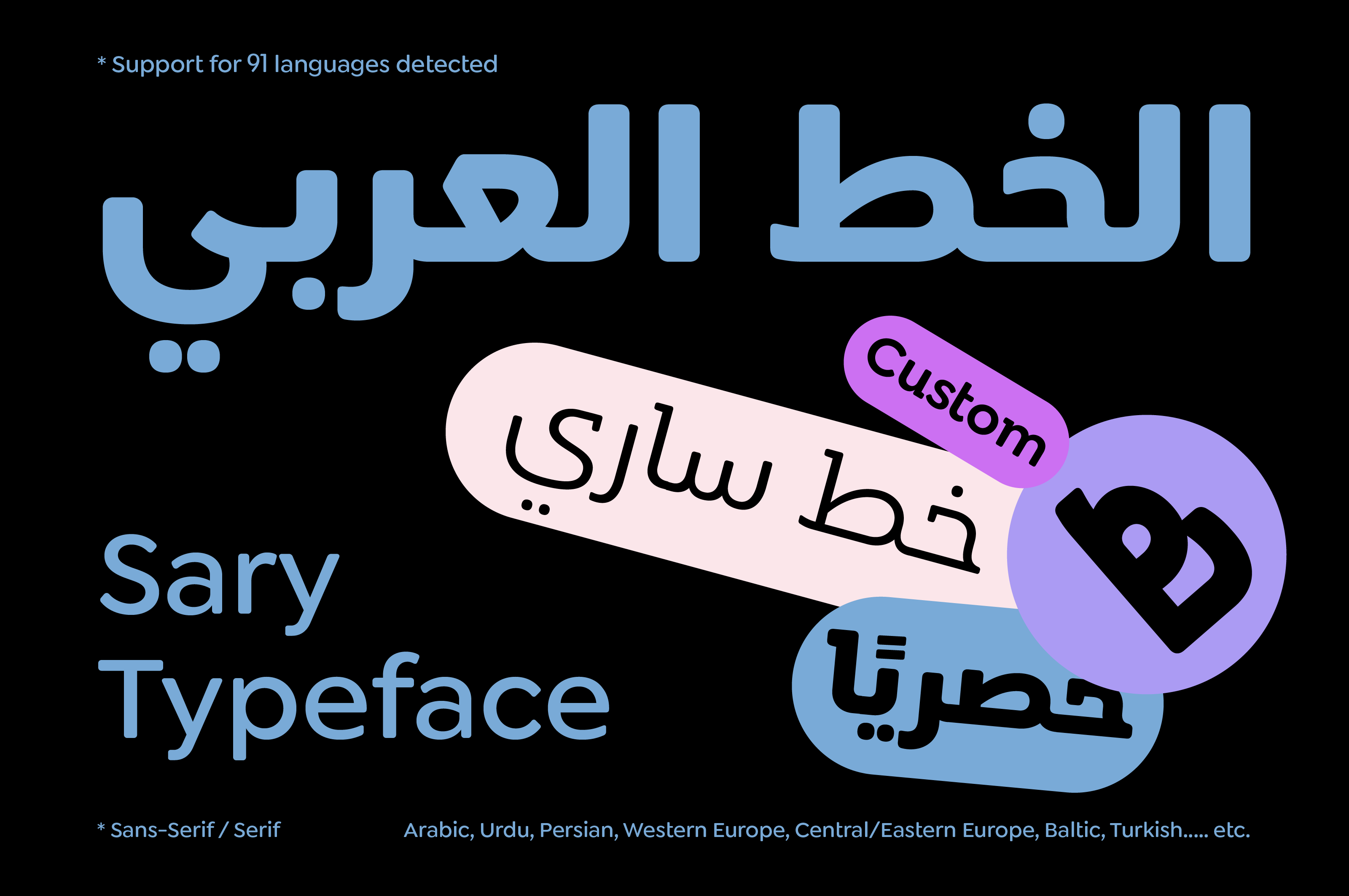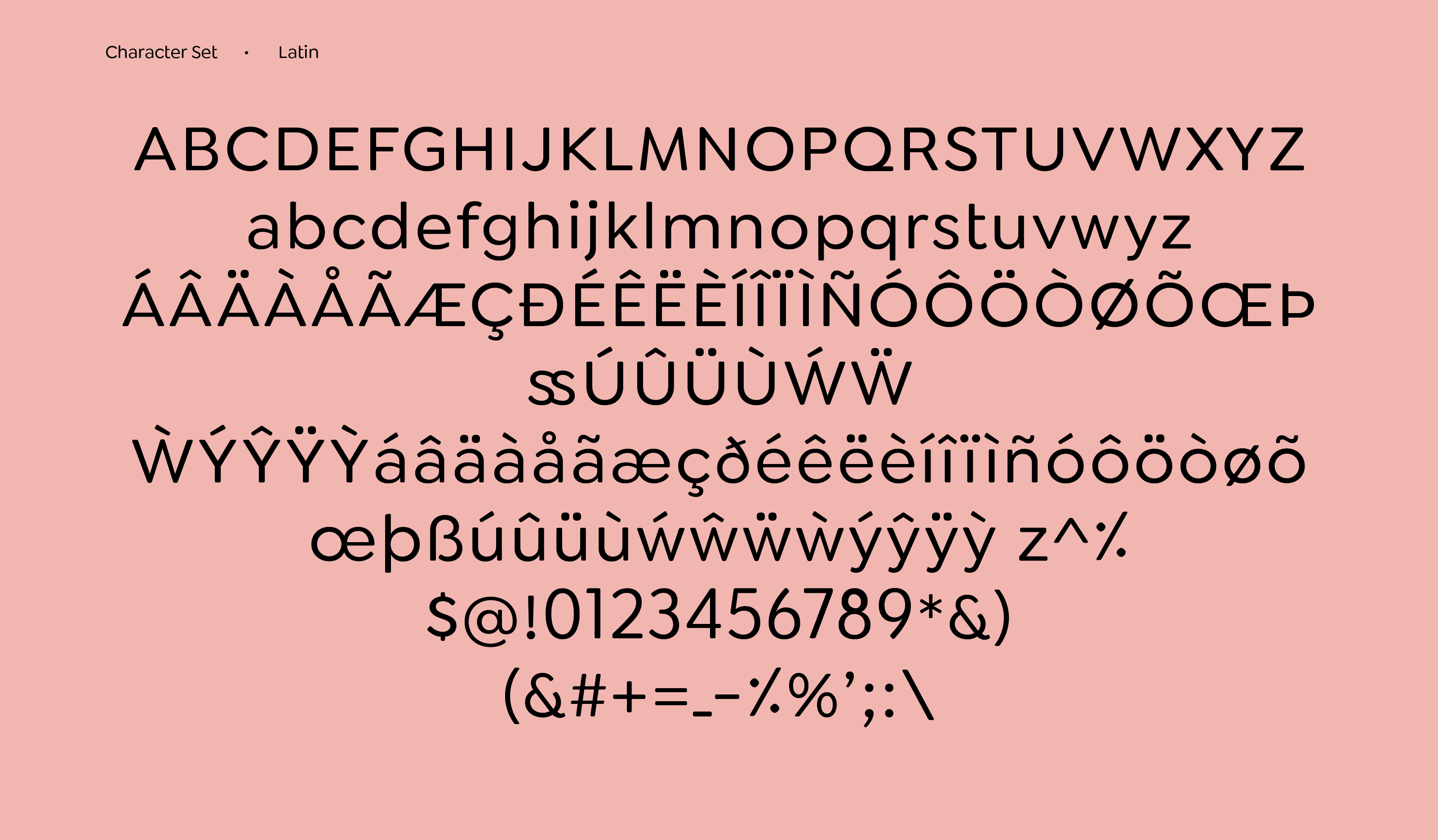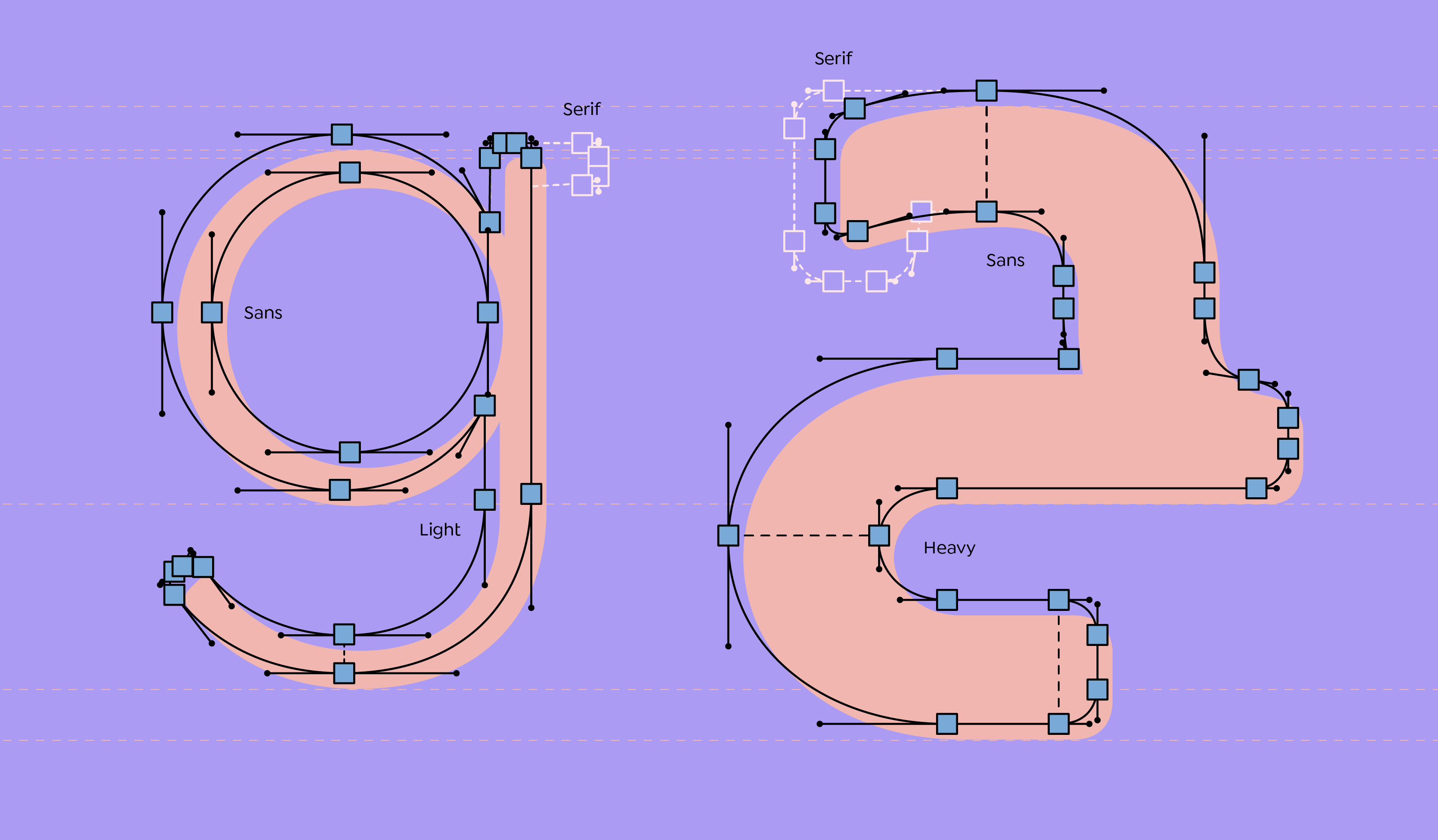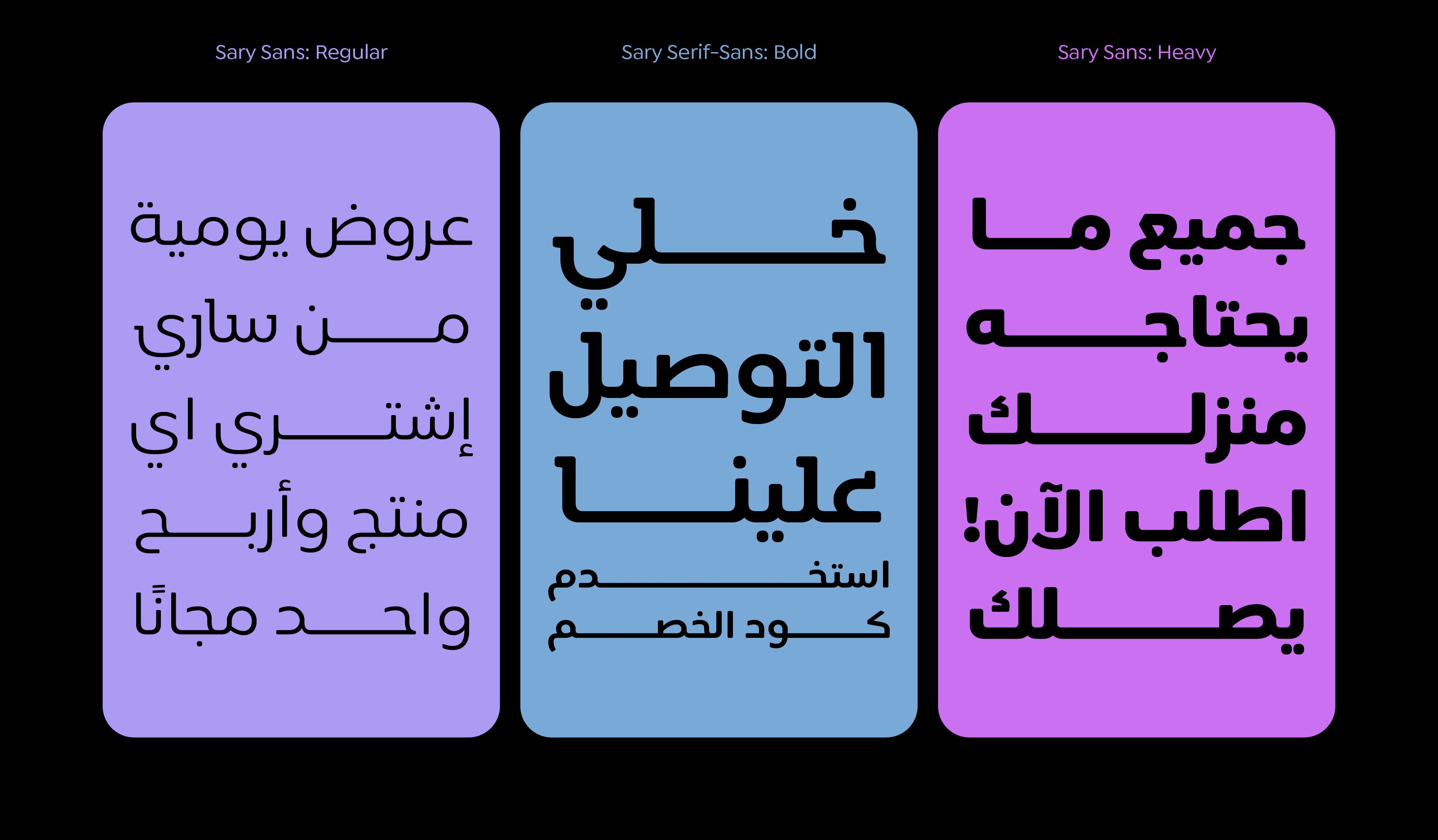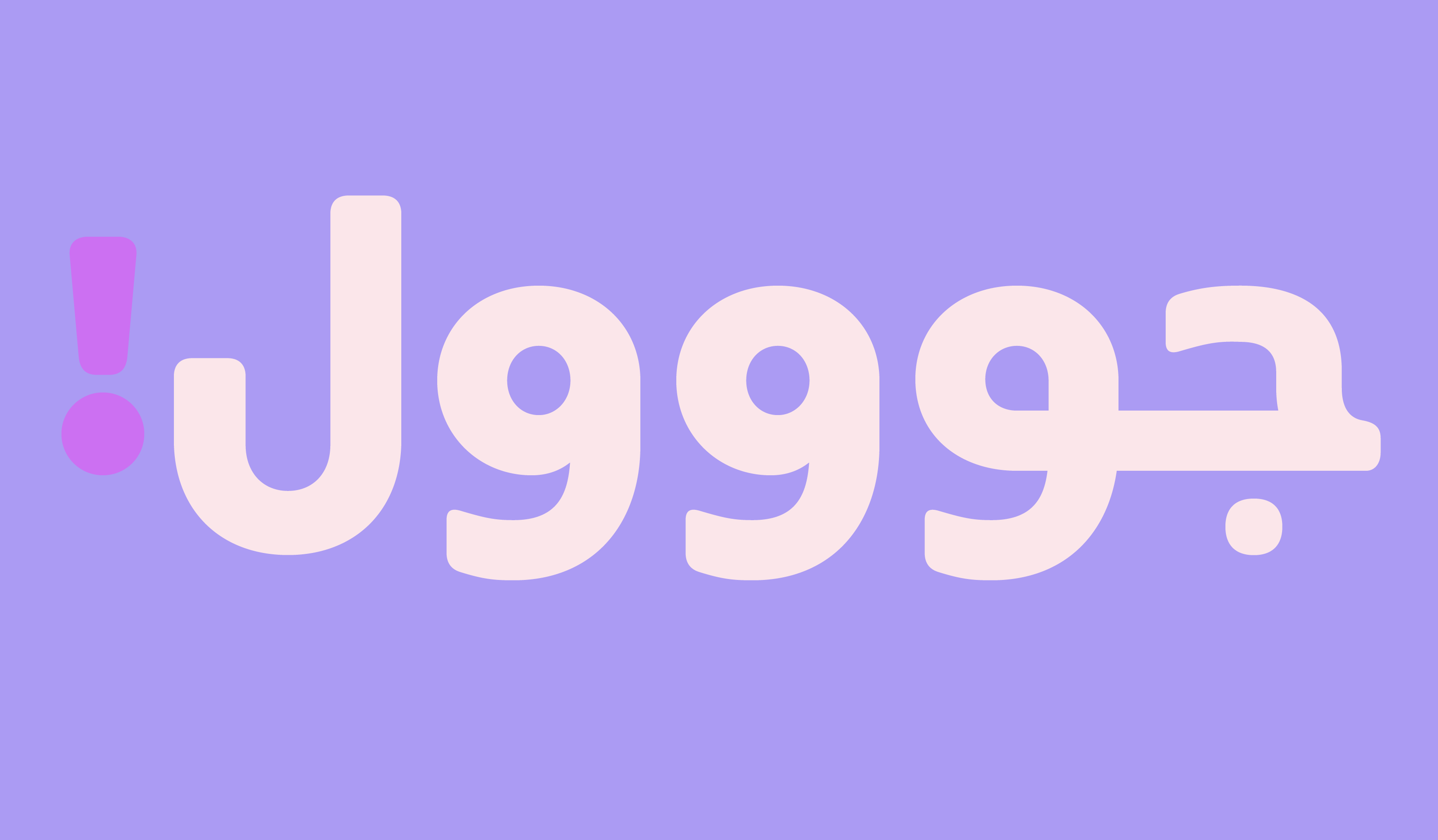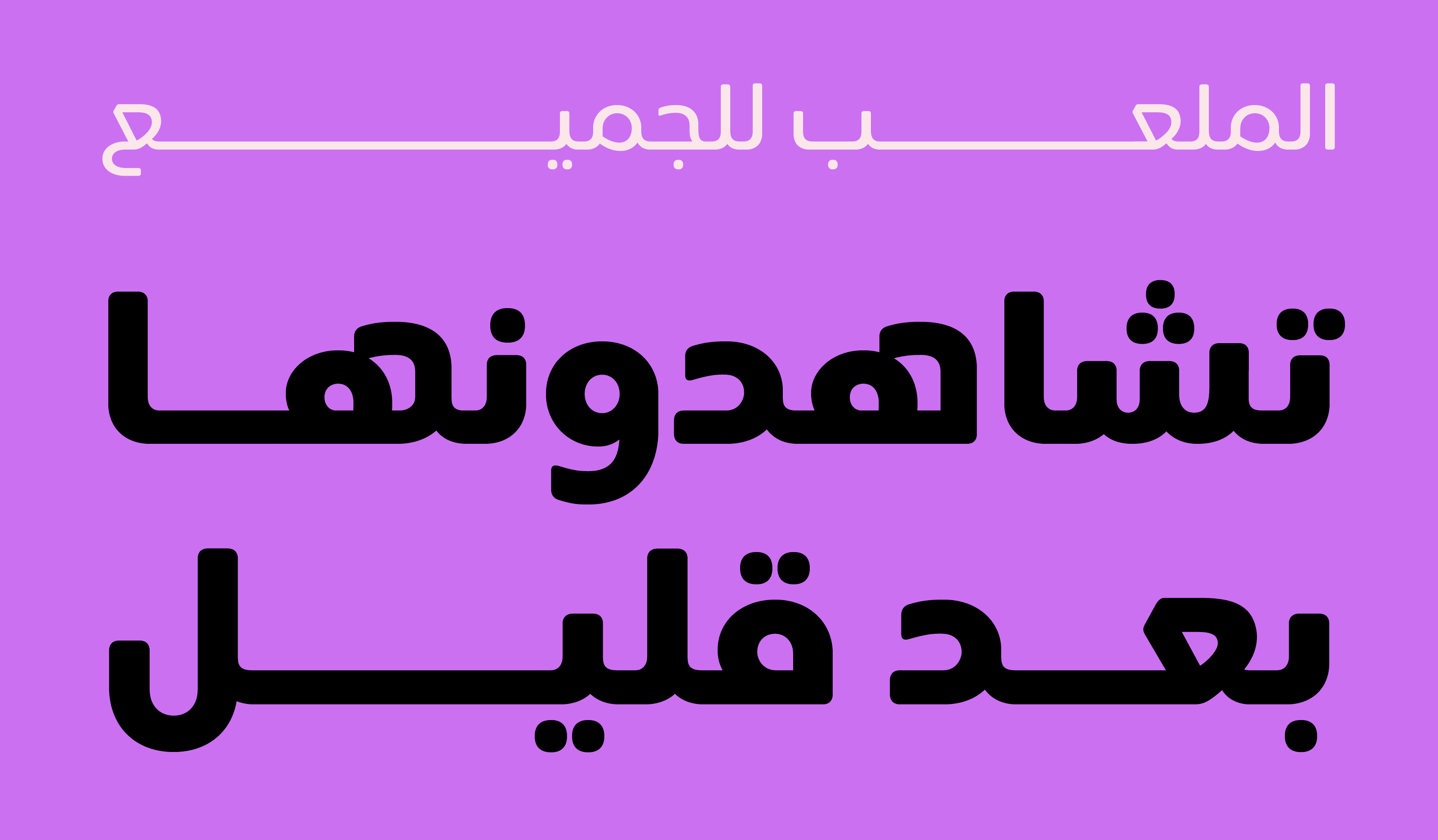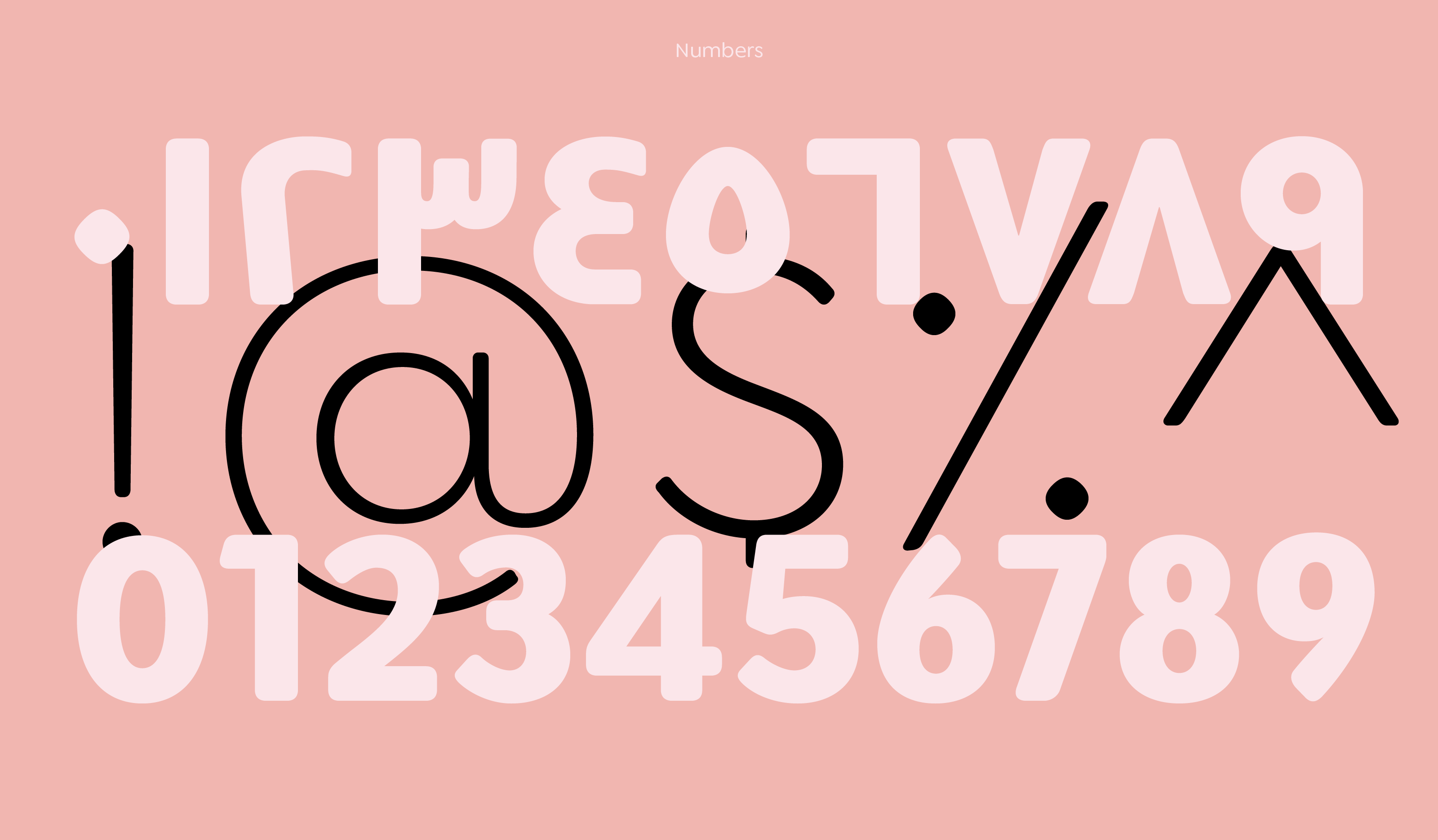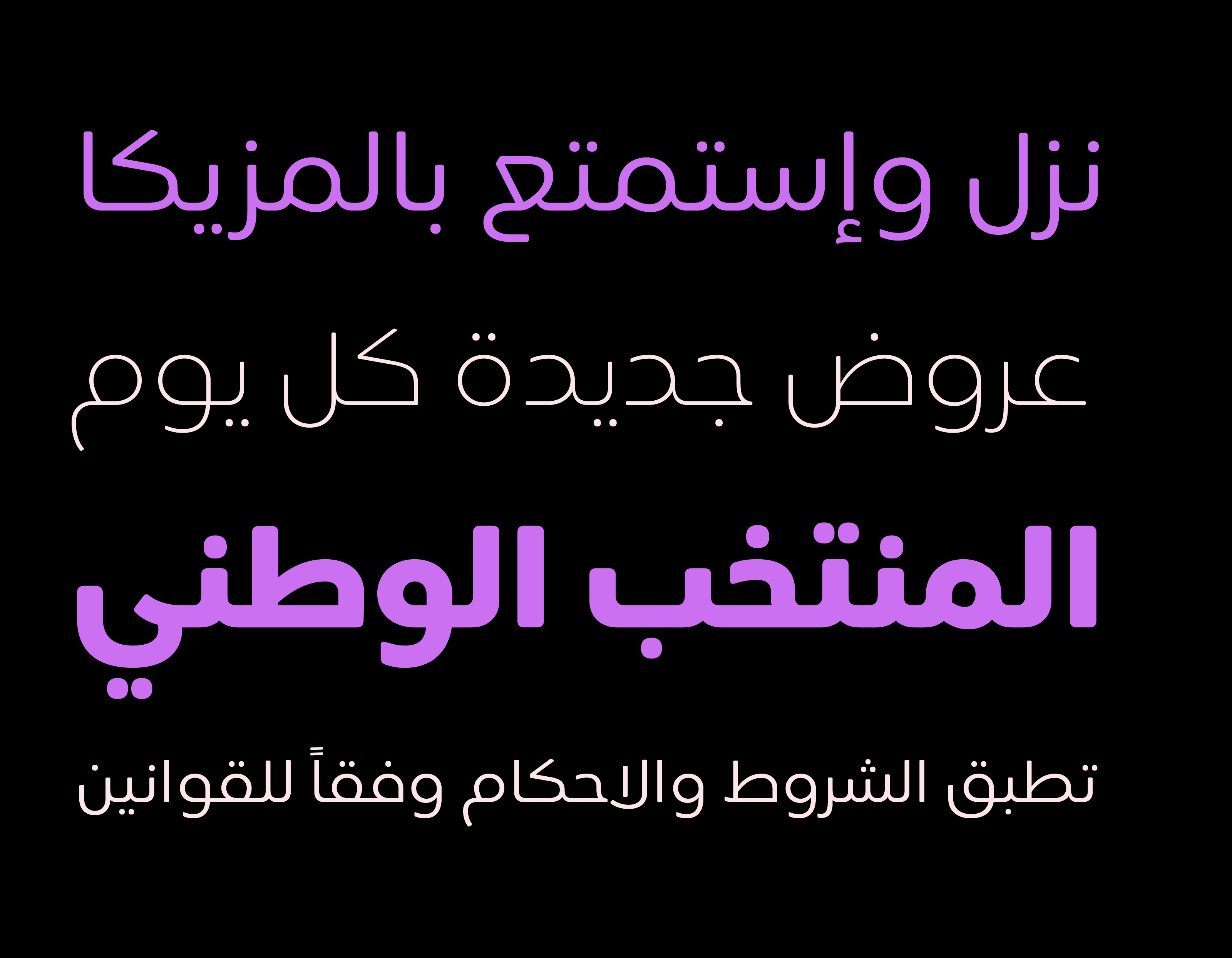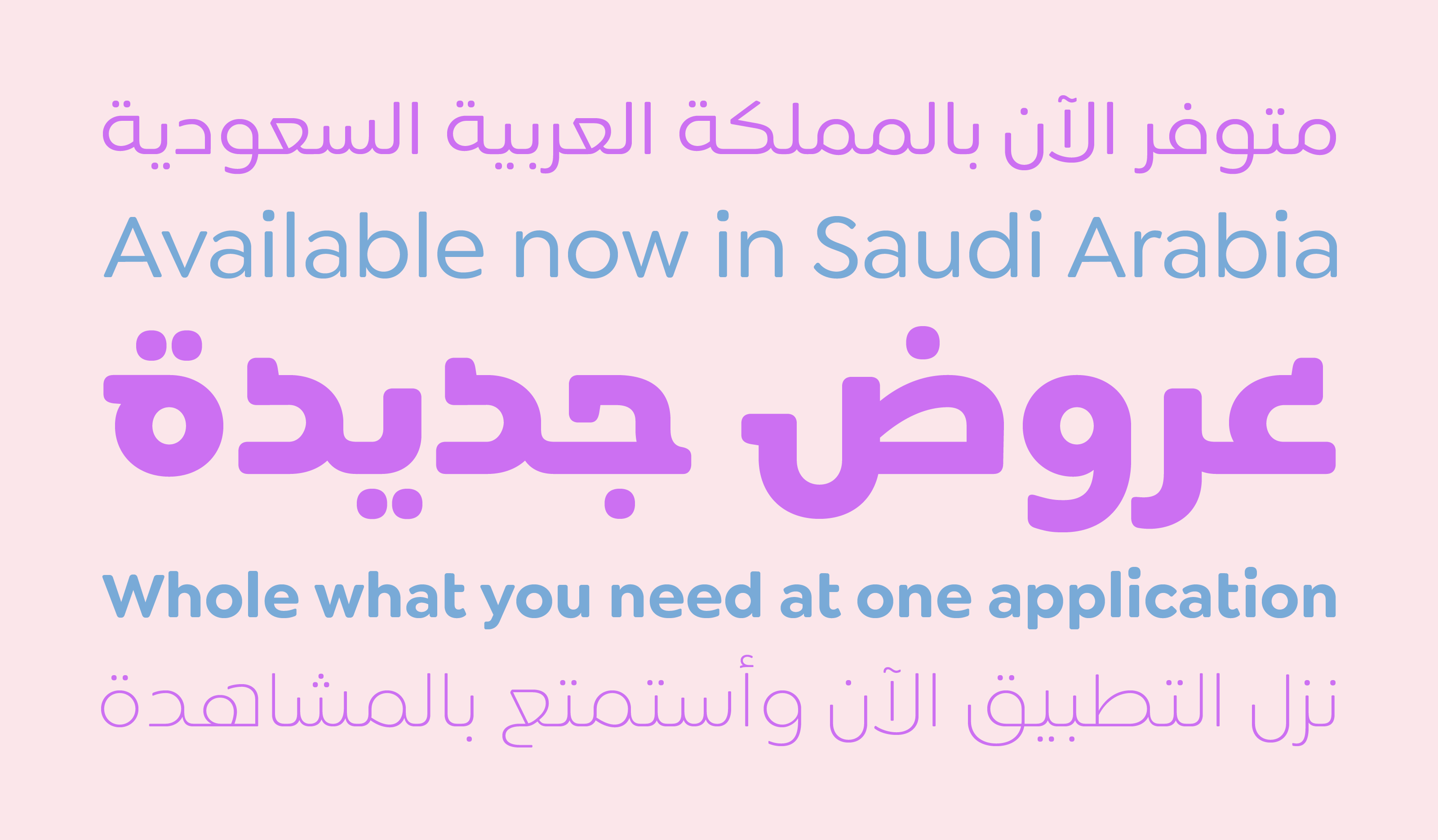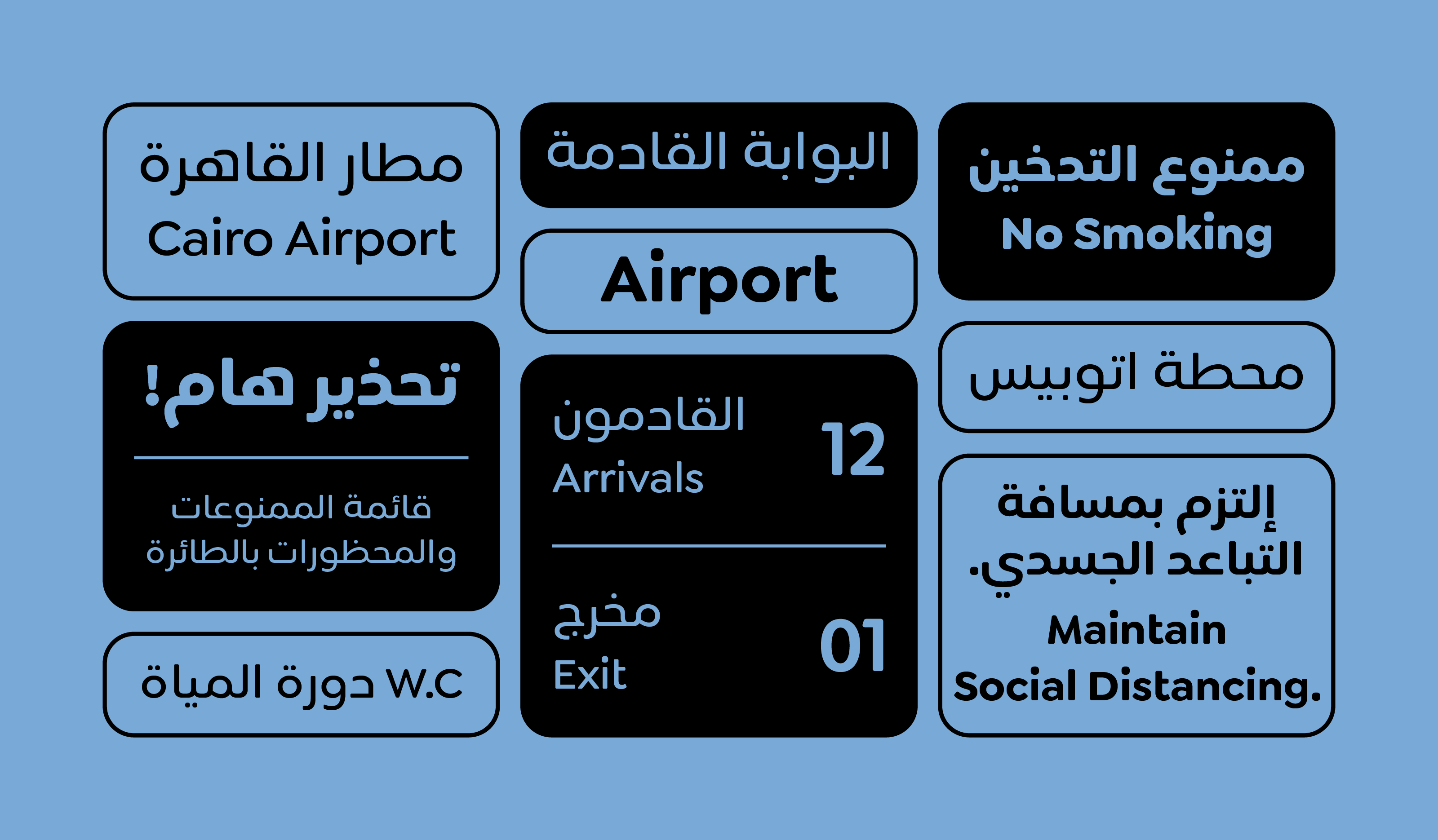
Sary App Custom Typeface
Arabic & Latin Custom Typeface / Brand Typography
Styles & Weights
Sans + Serif · 9 Weights Each.
SARY — A CUSTOM TYPE SYSTEM FOR THE APP.
A bilingual custom type family created as a core part of Sary’s brand identity and digital product.
Designed across Arabic and Latin, the system brings together two complementary families: Sary Sans for interfaces and continuous text, and Sary Serif for headlines and more expressive brand communication.
ONE SYSTEM. TWO VOICES.
Sary spans nine Sans weights and nine Serif weights, creating a flexible typographic palette for everything from compact interface text to large campaign headlines. Both families were developed to work together with a consistent visual rhythm, while giving the brand enough range to shift naturally between functional and expressive communication.
DESIGNED FOR A MULTILINGUAL PRODUCT.
The type system supports 91 languages across Arabic- and Latin-based writing systems, including Arabic, Persian and Urdu. A broad set of OpenType features—including contextual alternates, fractions, ordinals, tabular figures, case-sensitive forms, stylistic sets and ligatures—extends the family for everyday product and brand use.
FROM BRAND IDENTITY TO INTERFACE.
The goal was not simply to create a branded font, but to build a functional typographic system that carries Sary’s identity across its digital experience. Sary Sans brings clarity and consistency to interface and text use, while Sary Serif introduces a more distinctive voice for headlines and communication—keeping Arabic and Latin visually connected across every touchpoint.
BUILT TO GROW WITH THE BRAND.
Following completion of the typeface, we continued supporting the Sary team through implementation, helping the system transition smoothly into the app and the wider brand ecosystem.
SARY IN USE.
A selection of the custom typefaces in use across Sary’s digital products, campaigns and official communication.